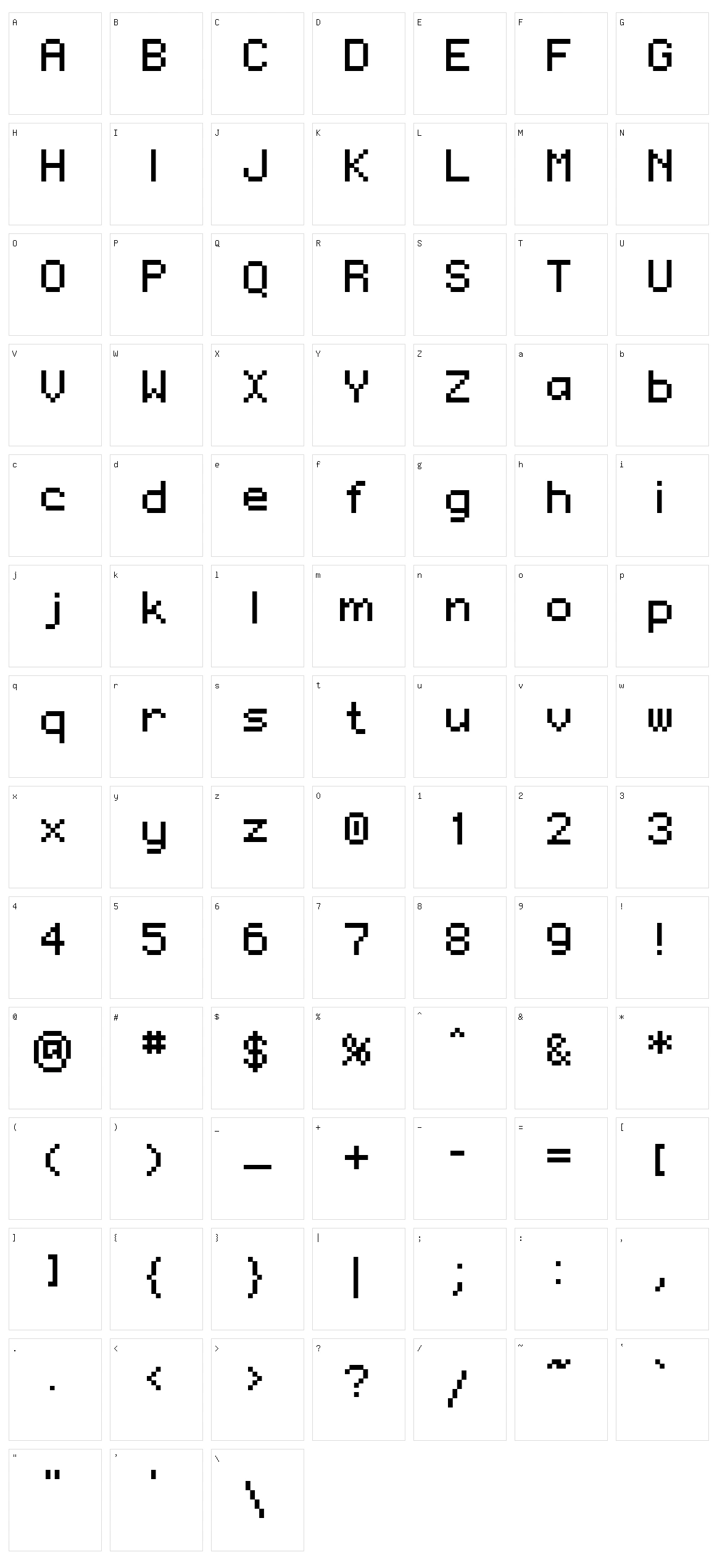
Regupix
Designed by: Reekee of Dimenzioned
Pixedpack fonts are specifically designed to look crisp (aliased) in Flash. However, they work in other applications as well.